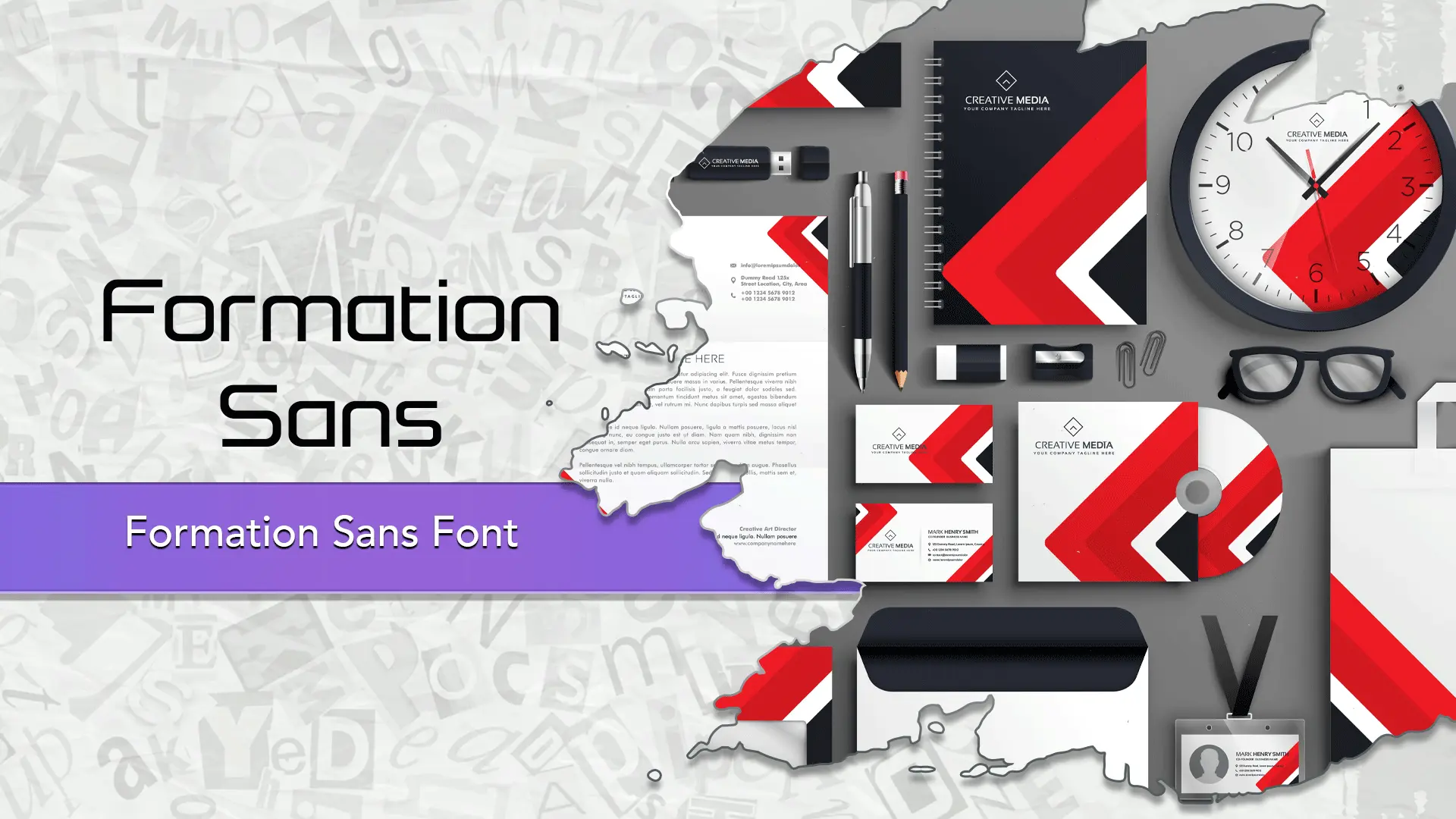
The Formation Sans font family may be ideal for you if you enjoy working on an artistic design project. The lively, expressive look of this typeface, which was created by Steve Gardner, makes it ideal for Corporate Branding and Identity(Logos, Brand Guidelines, Annual Reports & Brochures), Web Design and User Interfaces(Body Text, Headlines and Navigation, Forms and Data Display), Editorial Design(Magazines and Newspapers, Textbooks and Educational Materials), Digital Publications like E-books, online journals, and newsletters. and other light-hearted visual projects.
Regular are the one primary font styles of the Formation Sans font family. You may build dynamic, visually appealing text layouts with the distinct flair that each style offers. With crisp, readable lines and a relaxed tone.